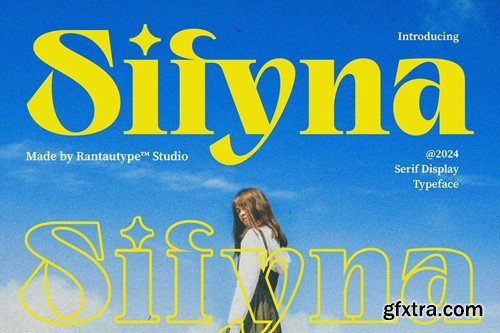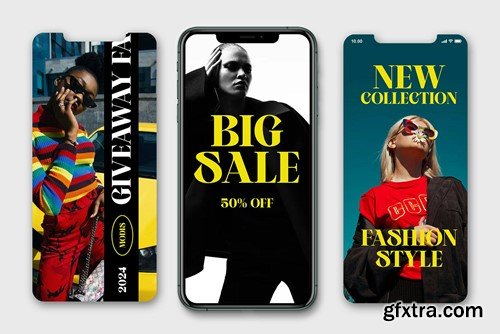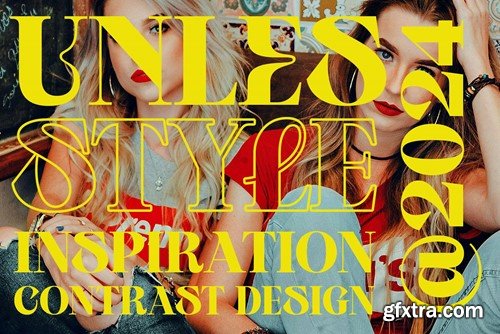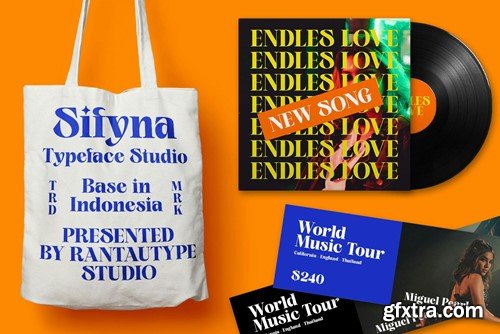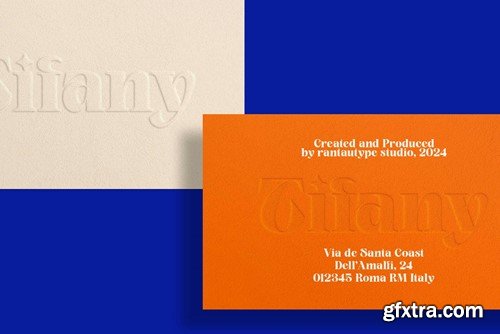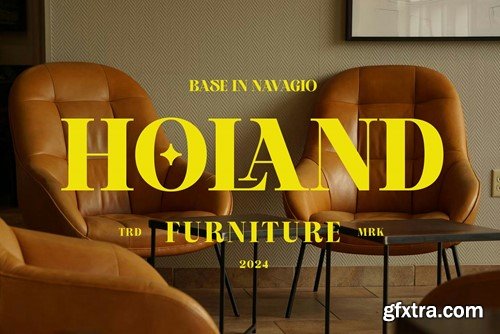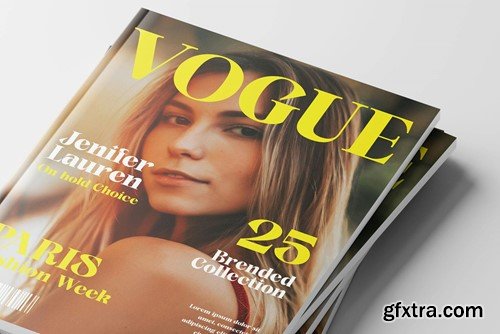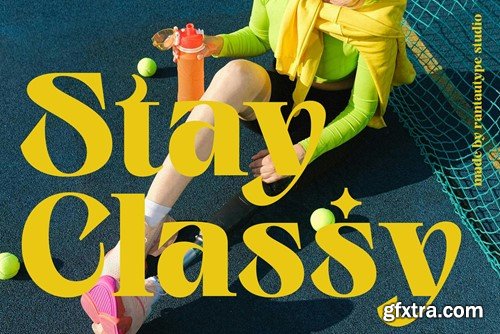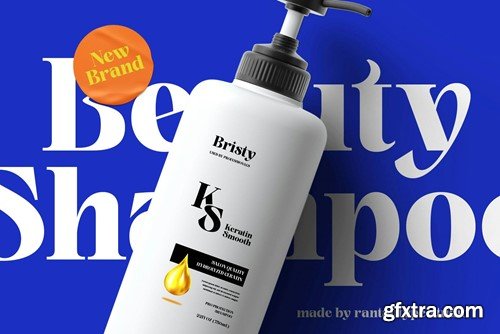
Sifyna Modern Serif 字体 UWXDRKN
Sifyna is modern serif typeface with contrast visual design shape. Sifyna come with bold trend typeface to help your make attractive design project. Sifyna have two style in reguler and outline also included alternate, ligature and mulitlingual character. Sifyna is a perfectly choice for any creative endeavor, chic, lifestyle design such as logos, advertisements, watermark on photography, stationery, branding project, display and magazine, invitation, corporate brand, product design, label, business project and many other project with elegant touch. What you have: Fonts include Multilingual Character for: Afrikaans, Albanian, Asu, Basque, Bemba, Bena, Breton, Chiga, Cornish, Dutch, English, Estonian, Filipino, Finnish, Friulian, Galician, Gusii, Indonesian, Irish, Italian, Kabuverdianu, Kalenjin, Kinyarwanda, Luo, Luxembourgish, Luyia, Machame, Makhuwa-Meetto, Makonde, Malagasy, Manx, Morisyen, North, Ndebele, Nyankole, Oromo, Portuguese, Quechua, Romansh, Rombo, Rundi, Rwa, Samburu, Sango, Sangu, Scottish, Gaelic, Sena, Shambala, Shona, Soga, Somali, Spanish, Swahili, Swedish, Swiss, German. Thank you for your purchase! Hope you enjoy with our font!